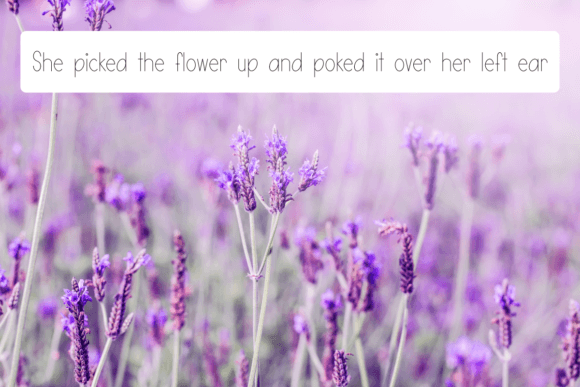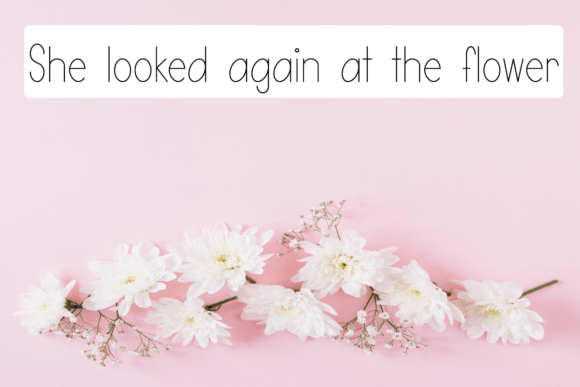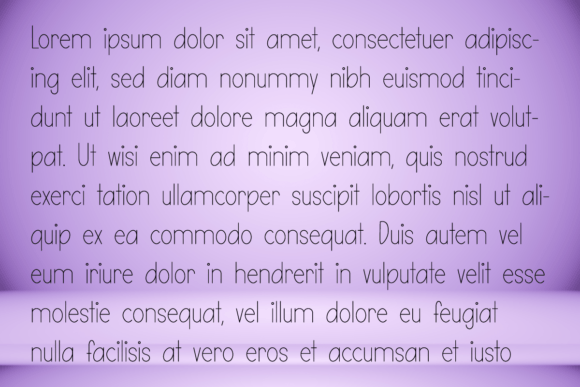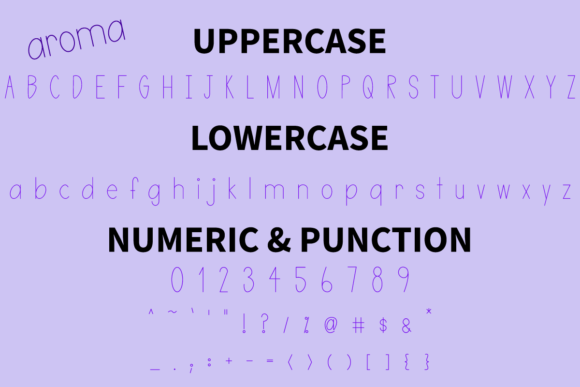
Aroma Font: The Perfect Addition to Your Design Projects
Are you looking for a font that can add a touch of fun and friendliness to your design projects? Look no further than Aroma Font! This whimsical and quirky handwritten font is perfect for designers and crafters who want to create unique and eye-catching designs. In this article, we’ll take a closer look at Aroma Font and explore its features, uses, and benefits.
What is Aroma Font?
Aroma Font is a handwritten font that is designed to be fun and friendly. Its whimsical and quirky style makes it perfect for adding a personal touch to your designs. Whether you’re creating logos, wedding invitations, quotes, advertisements, or print materials, Aroma Font is sure to brighten up your projects and make them stand out.
Key Features of Aroma Font
• Handwritten style: Aroma Font has a unique handwritten style that gives it a personal and friendly feel.
• Whimsical and quirky: This font has a playful and quirky vibe that makes it perfect for designs that need to stand out.
• Versatile: Aroma Font can be used for a wide range of design projects, from logos and wedding invitations to quotes and advertisements.
• Easy to read: Despite its playful style, Aroma Font is easy to read and understand, making it perfect for body text and headlines.
Uses of Aroma Font
Aroma Font is a versatile font that can be used for a wide range of design projects. Here are some ideas to get you started:
• Logos: Aroma Font is perfect for creating unique and memorable logos that reflect your brand’s personality.
• Wedding invitations: Add a touch of whimsy and romance to your wedding invitations with Aroma Font.
• Quotes and posters: Aroma Font is great for creating eye-catching quotes and posters that will grab attention.
• Advertisements: Use Aroma Font to create ads that are fun, friendly, and engaging.
• Print materials: Aroma Font can be used for a wide range of print materials, including magazines, brochures, and flyers.
Benefits of Using Aroma Font
There are many benefits to using Aroma Font in your design projects. Here are a few:
• Unique and eye-catching: Aroma Font is a unique and eye-catching font that will make your designs stand out.
• Versatile: Aroma Font can be used for a wide range of design projects, making it a great addition to your font library.
• Fun and friendly: Aroma Font has a fun and friendly vibe that will add a personal touch to your designs.
Tips for Using Aroma Font
Here are a few tips for using Aroma Font in your design projects:
• Use it sparingly: Aroma Font is a bold font, so use it sparingly to avoid overwhelming your design.
• Pair it with other fonts: Aroma Font pairs well with other fonts, so experiment with different combinations to find the perfect look.
• Experiment with colors: Aroma Font looks great in a wide range of colors, so don’t be afraid to experiment and find the perfect color for your design.
Aroma Font is a fun and friendly handwritten font that is perfect for designers and crafters who want to add a touch of whimsy and personality to their designs. With its unique and eye-catching style, Aroma Font is sure to brighten up your projects and make them stand out. Whether you’re creating logos, wedding invitations, quotes, advertisements, or print materials, Aroma Font is a great choice. So why not give it a try and see the difference it can make in your designs?